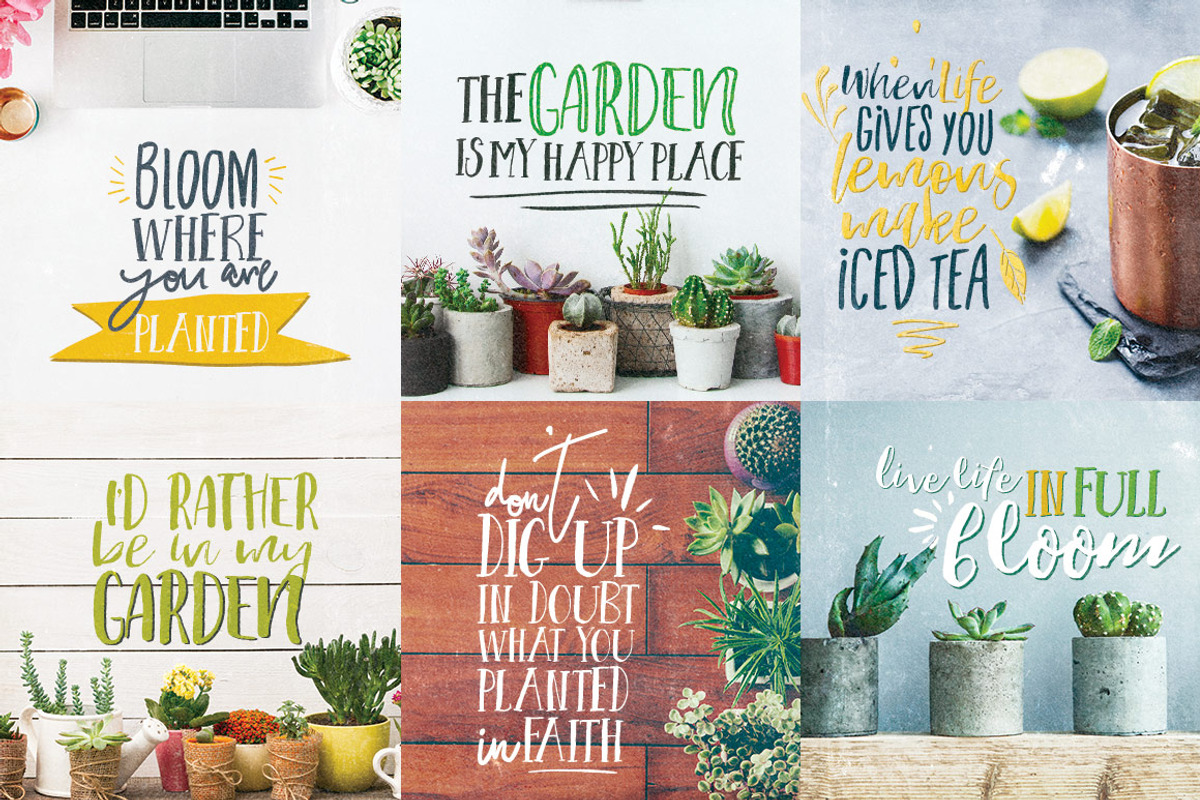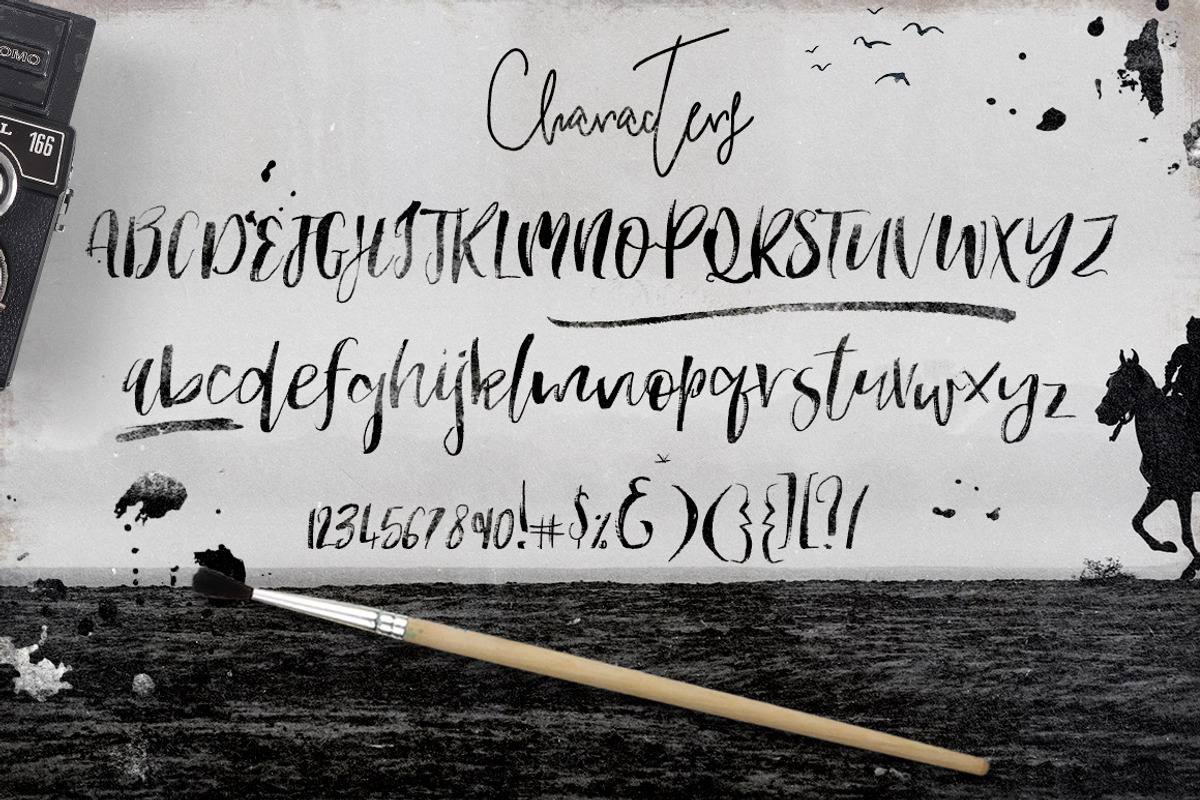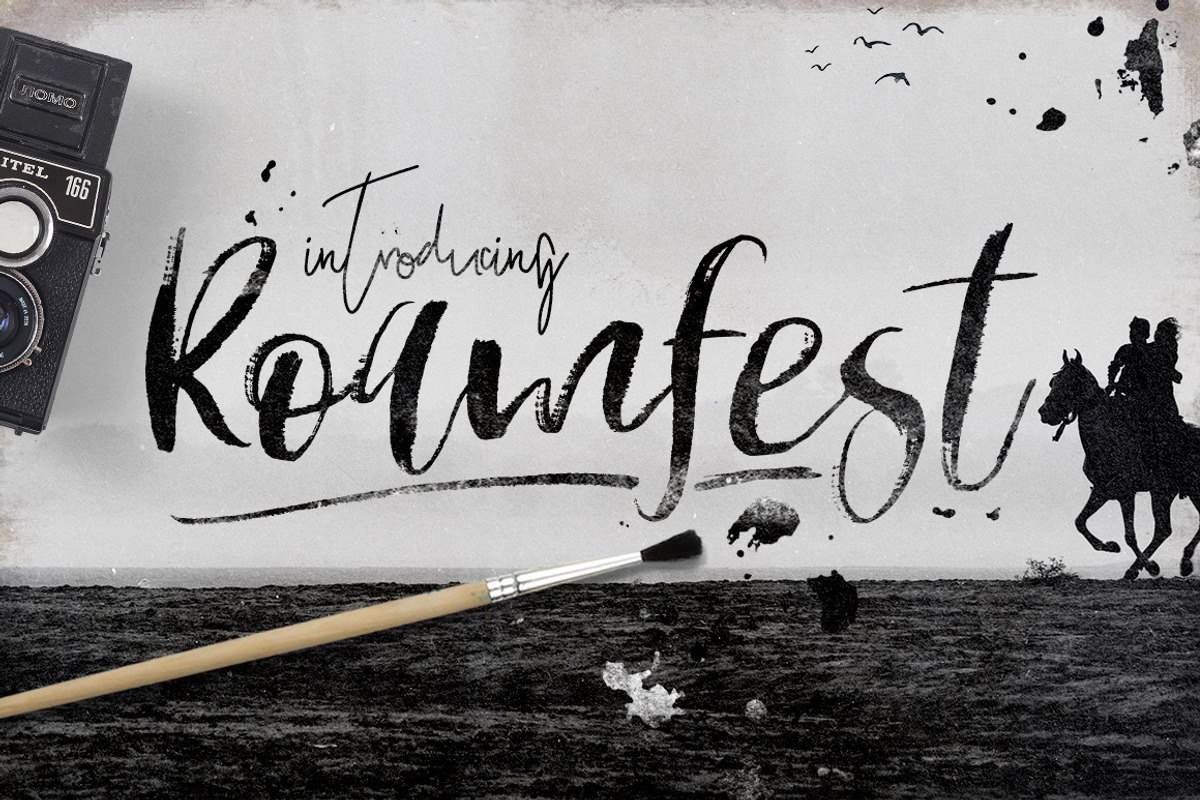
Roamfest Brush Script Font
Roamfest Brush Script Font by Creativeqube Design is a font selected for branding, posters, packaging, typography.
Why Roamfest Brush Script Font is worth a look
Roamfest Brush Script Font by Creativeqube Design fits naturally into Branding, posters, packaging, typography.